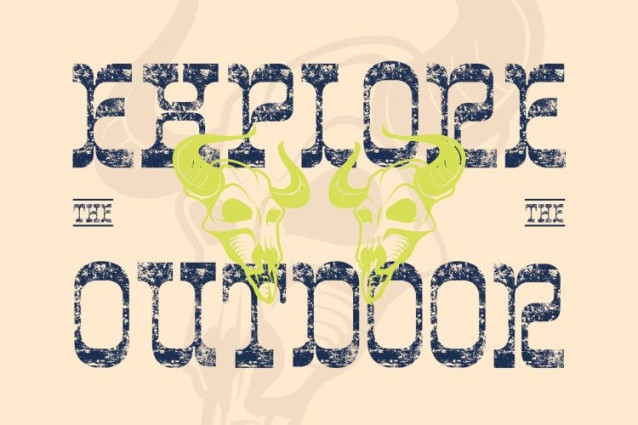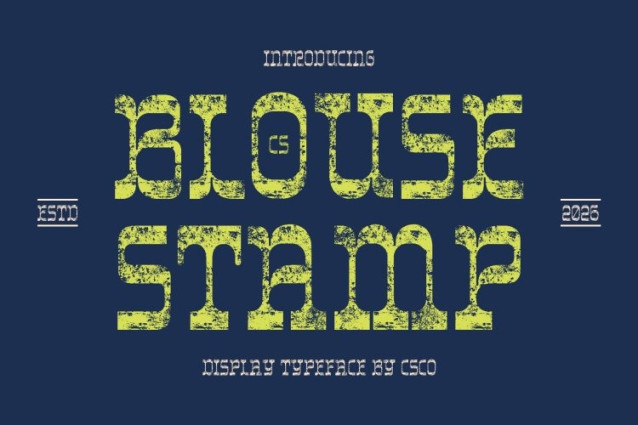
CS Blouse Stamp Font
CS Blouse Stamp Font This is a display serif font that embraces striking reverse contrast, where horizontal strokes are thicker than vertical ones, creating a bold and unconventional aesthetic. This distinctive contrast gives the letterforms a dynamic rhythm and expressive flow, now enhanced with a raw stamp texture that adds depth and tactile character.
Retro Influence with a Textured Modern Edge
Inspired by classic Western-style typography and mid-century signage, this font refines vintage charm into a contemporary statement. The thick horizontal strokes, playful curves, and exaggerated proportions create a strong visual personality, while the stamped texture introduces an authentic, print-worn feel that amplifies its retro appeal.
Designed for Statement-Making Typography
With its bold structure and artistic contrast, this font is perfect for impactful branding, posters, magazine headlines, album covers, packaging, and high-visibility advertising. The textured finish enhances its presence, making designs feel more expressive, handcrafted, and visually engaging across both print and digital media.
A Distinctive Blend of Classic and Creative
This font merges classic elegance with modern experimentation. Its reverse contrast structure combined with vintage stamp detailing creates a typographic identity that feels confident, stylish, and unforgettable ideal for fashion, lifestyle, creative campaigns, and bold editorial work.